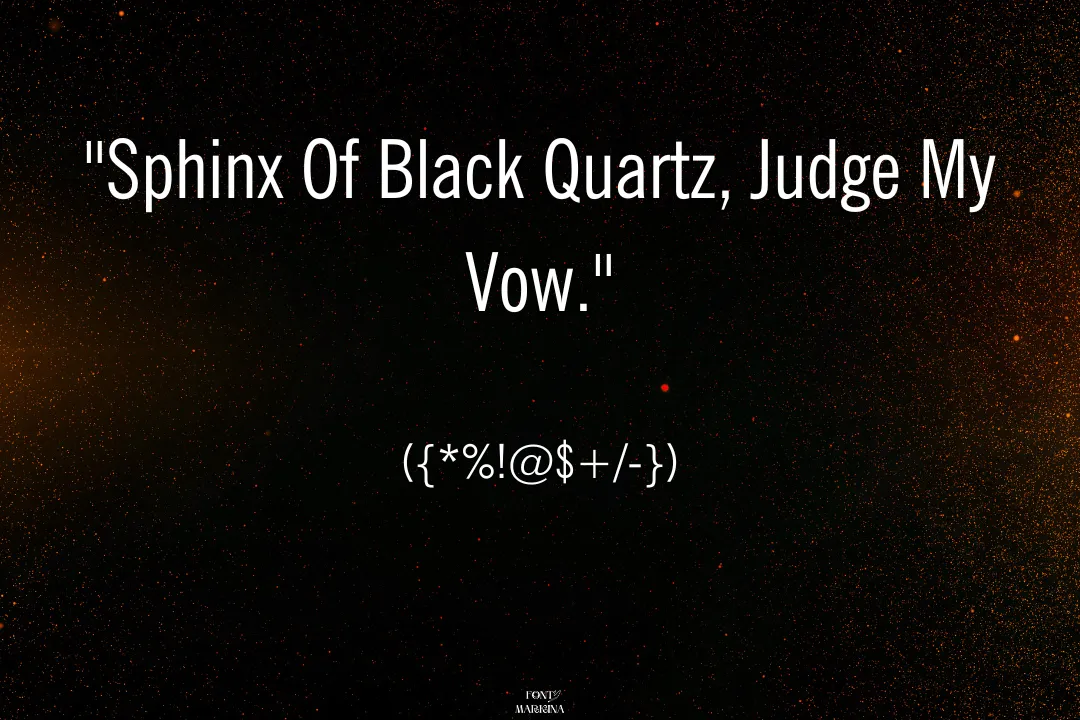
News Gothic BT Roman Condensed Font
News Gothic BT Roman Condensed Font is a sans-serif typeface designed by Morris Fuller Benton In 1908. It was developed for use in newspaper headlines, hence the name News Gothic. The font is known for its clean, modernist appearance and strong lines, making it a popular choice for use in headlines, titles, and other display text.
Uses of News Gothic BT Roman Condensed Font
News Gothic BT Roman Condensed is widely used in print and digital media for its clean and modern appearance. In the print world, it is often used in headlines and titles, making it an important font in the world of newspaper and magazine design. With its condensed form, it allows for more characters to fit into a smaller space, making it ideal for use in headlines, where space is limited.
This font works well with the arimo font. The strong lines and modernist appearance of the font make it a popular choice for use in posters, brochures, and other promotional materials.